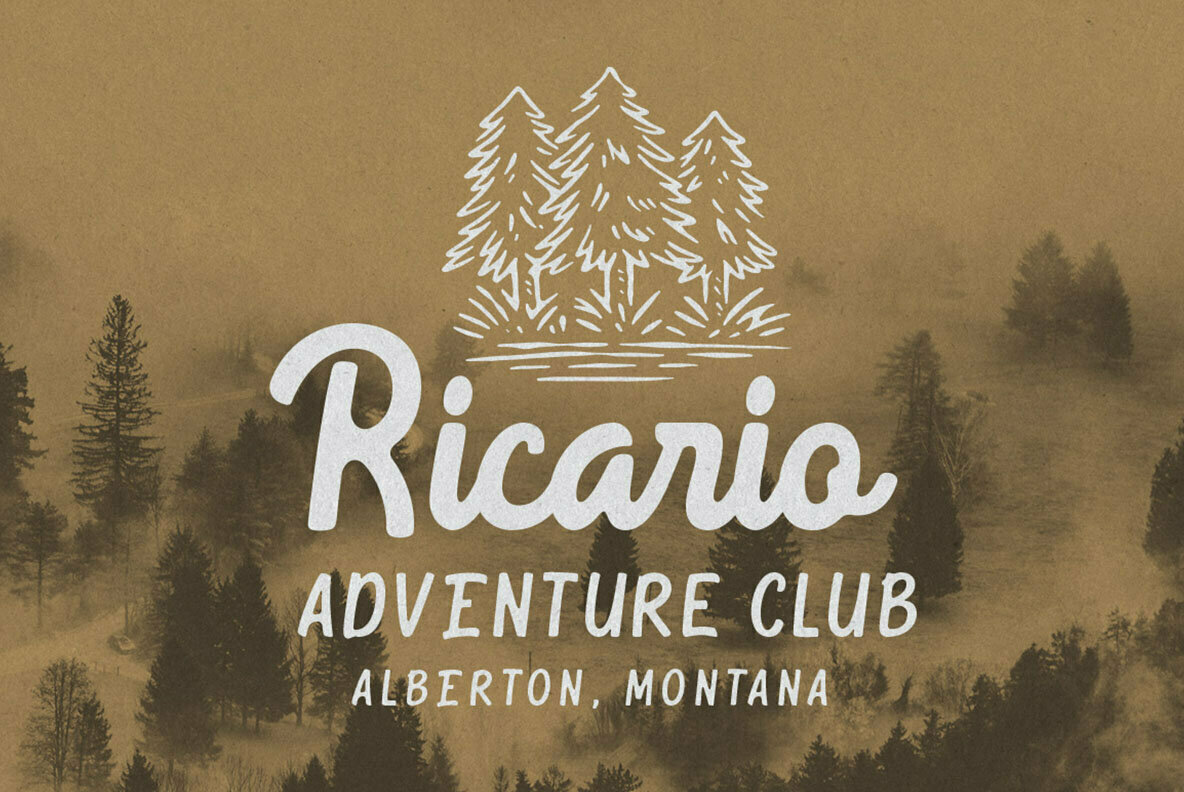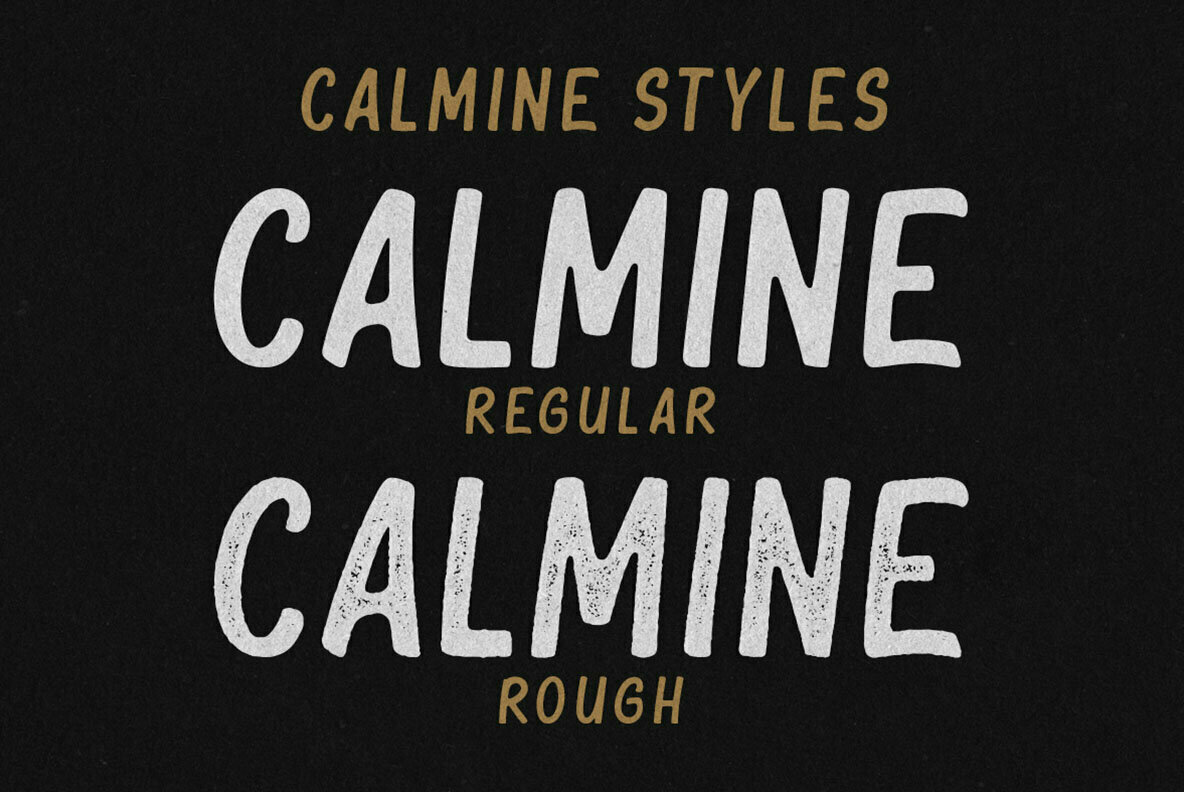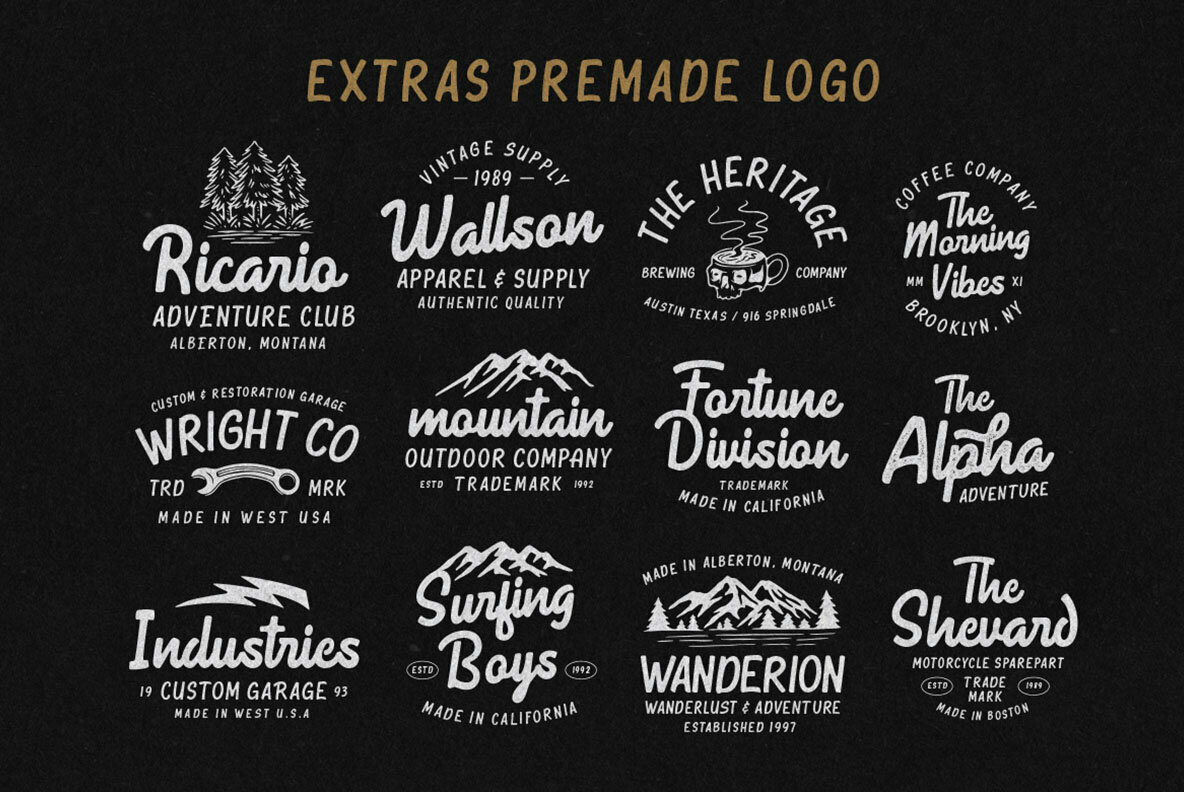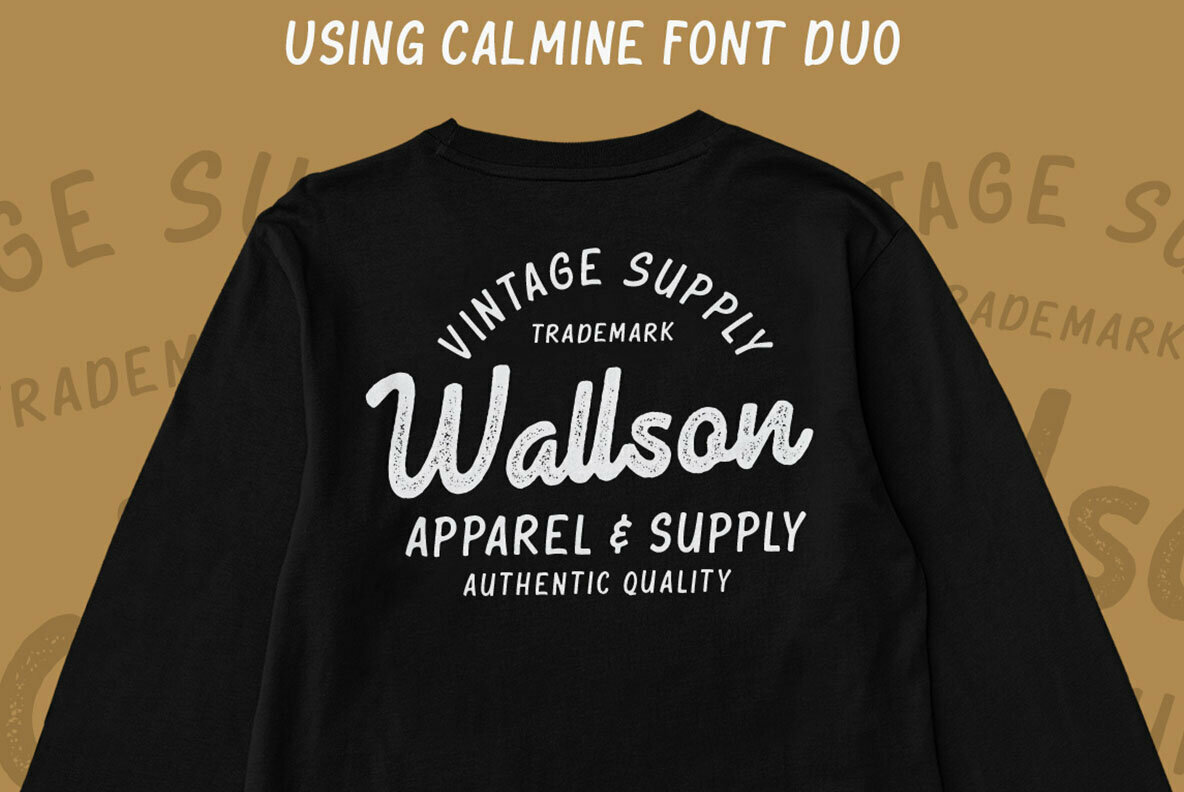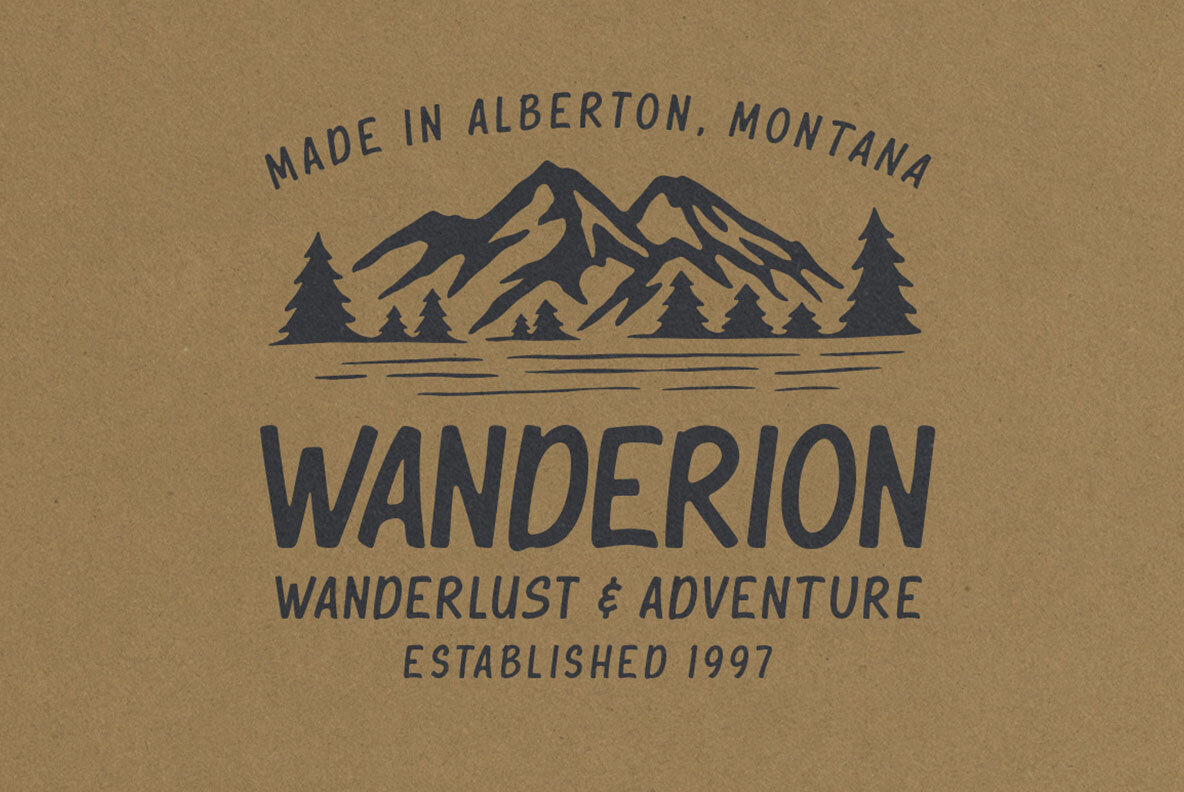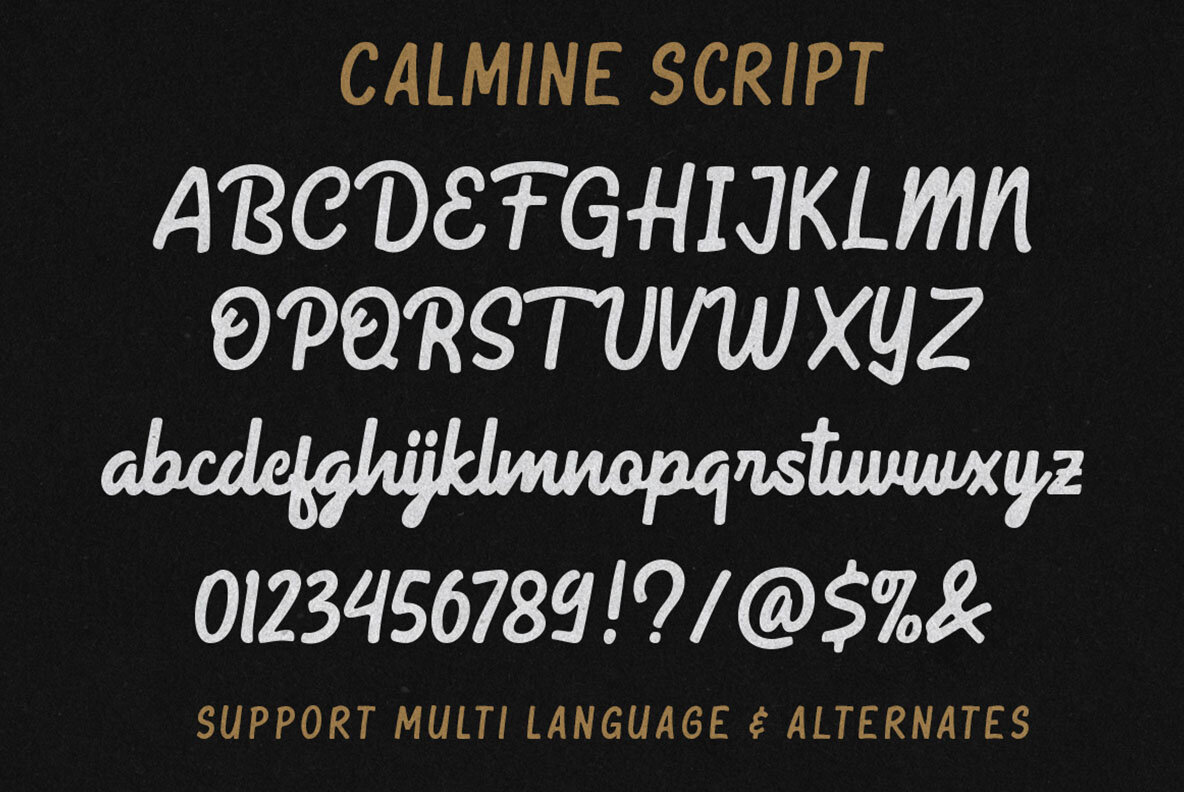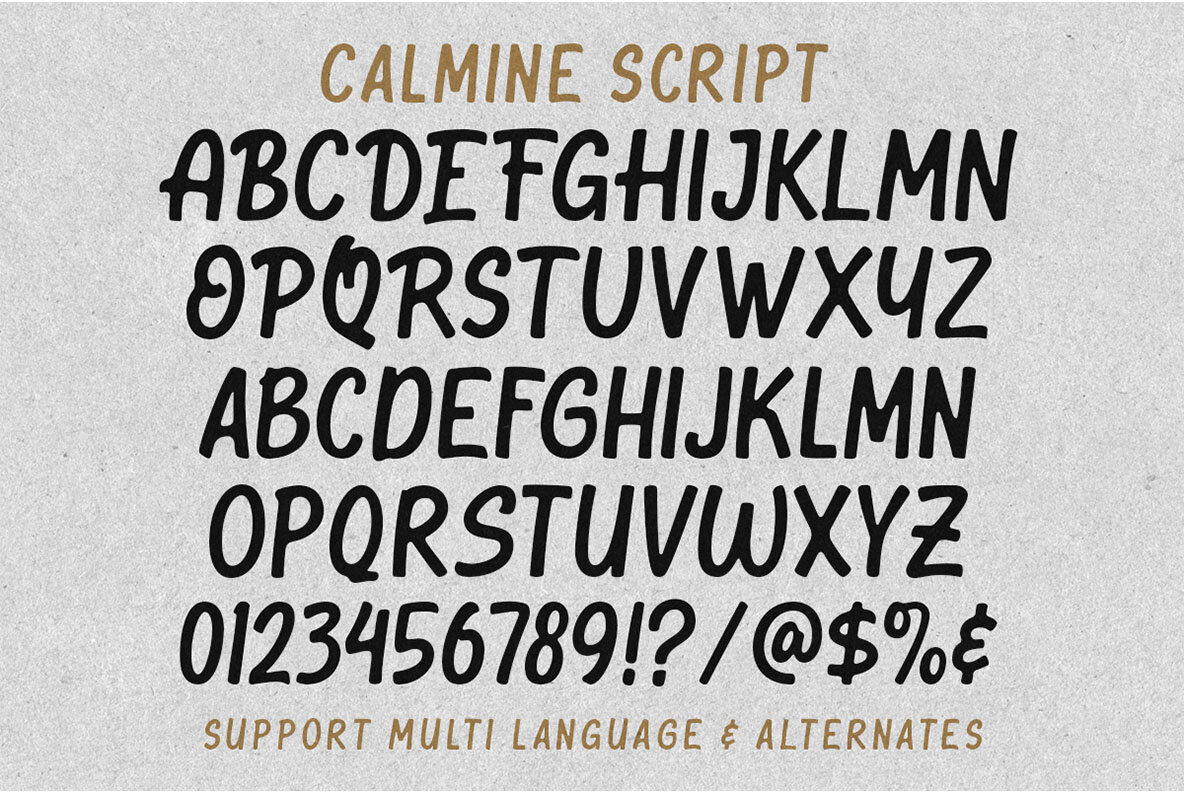
Calmine Font Duo
Calmine Font Duo with Extras (4 fonts)
Calmine Font Duo by Letterhend Studio offers a unique blend of artistic expression and classic design. Comprising a bold script and a refined sans serif, this duo is ideally suited for projects that demand a vintage or adventurous theme. Perfectly balanced for headlines, displays, and logotypes, Calmine lends a standout appearance to any application. Whether you're crafting a logo, designing an invitation, or working on a magazine layout, this versatile font duo adapts effortlessly. It is ideal for a wide variety of formal and creative forms, including wedding cards, fashion packaging, and advertising.Calmine Font Duo: Hand Drawn Elegance Meets Vintage Flair